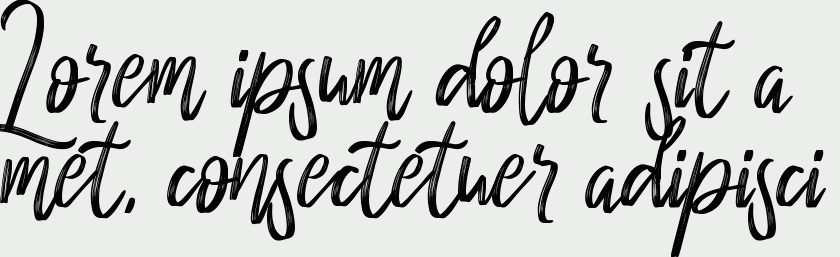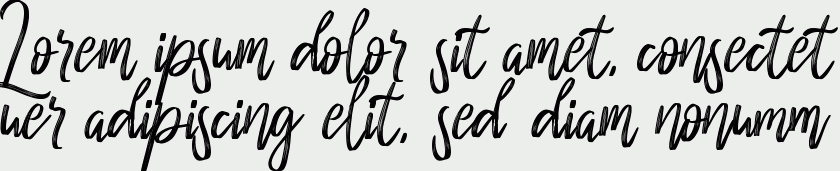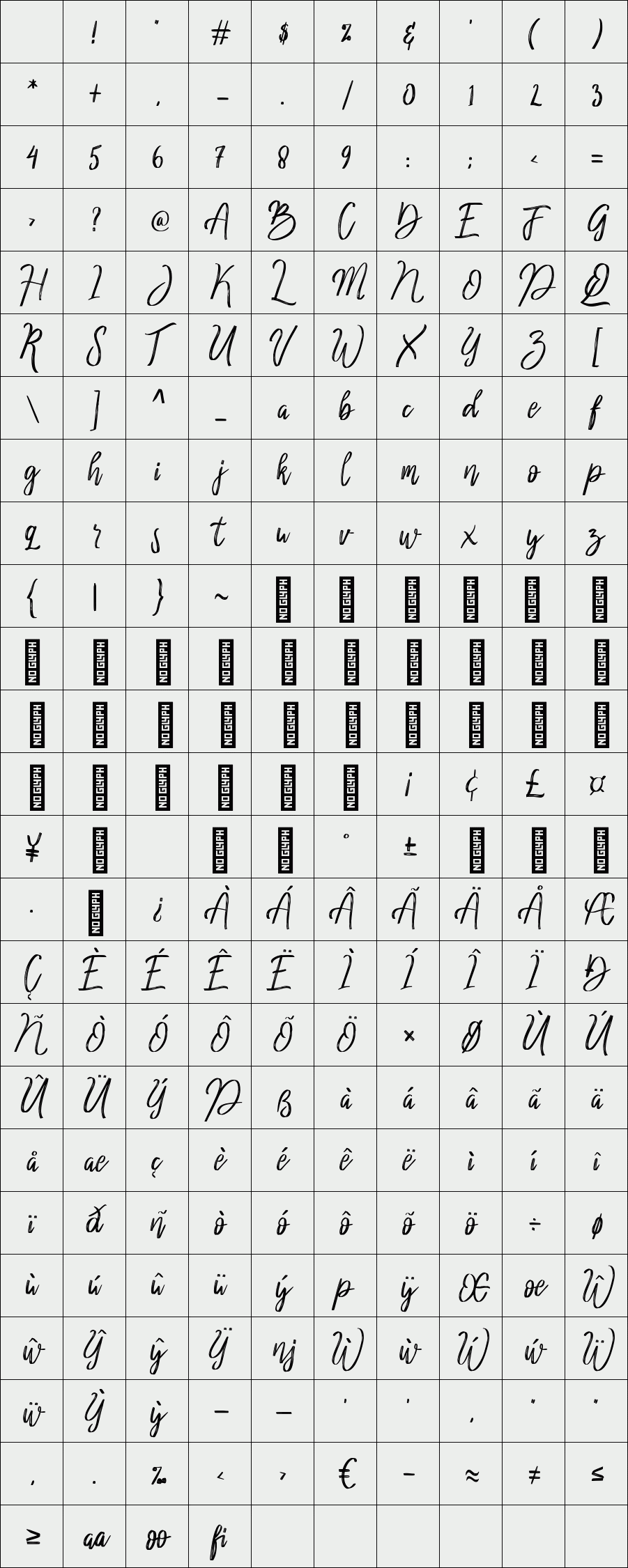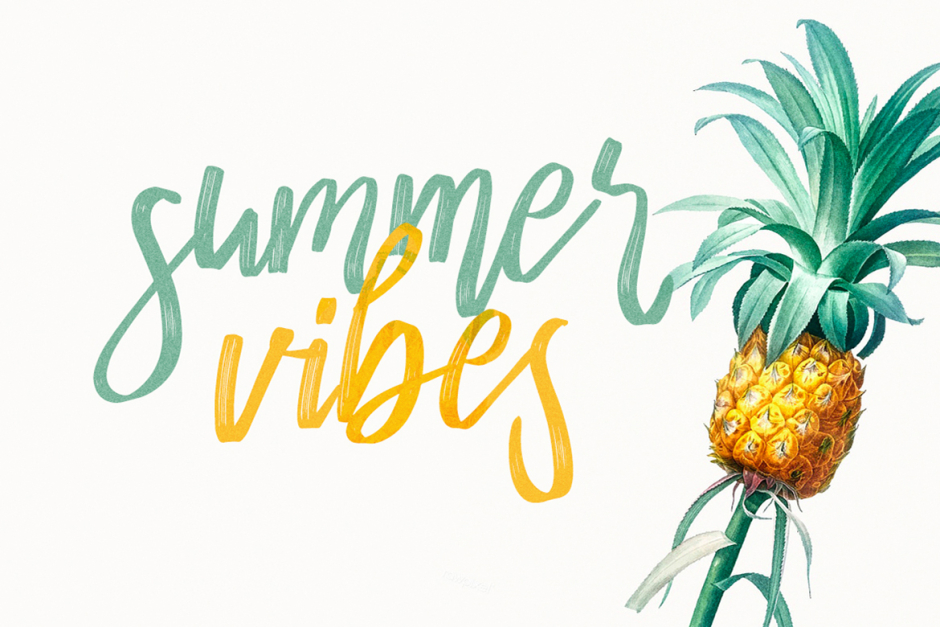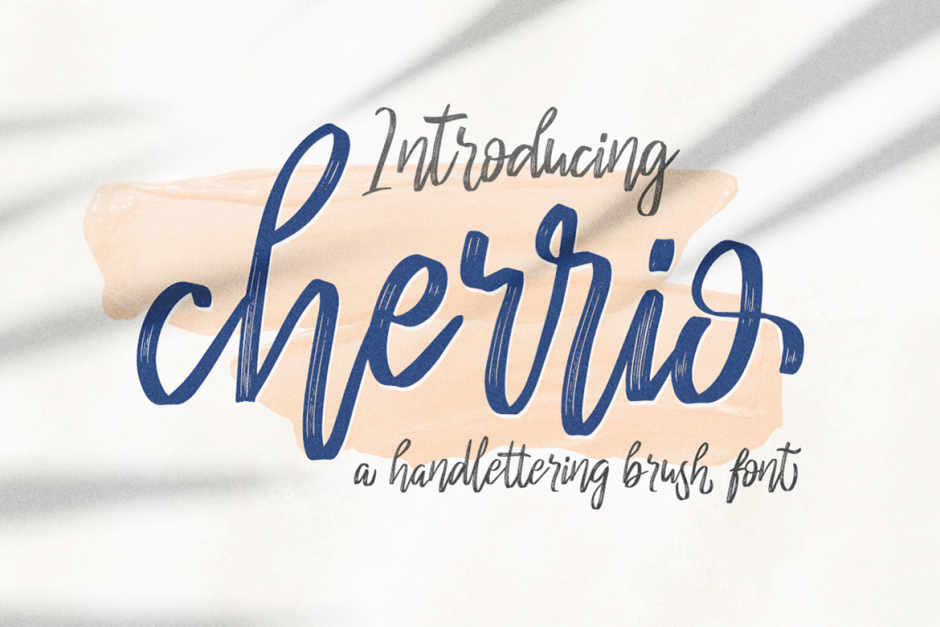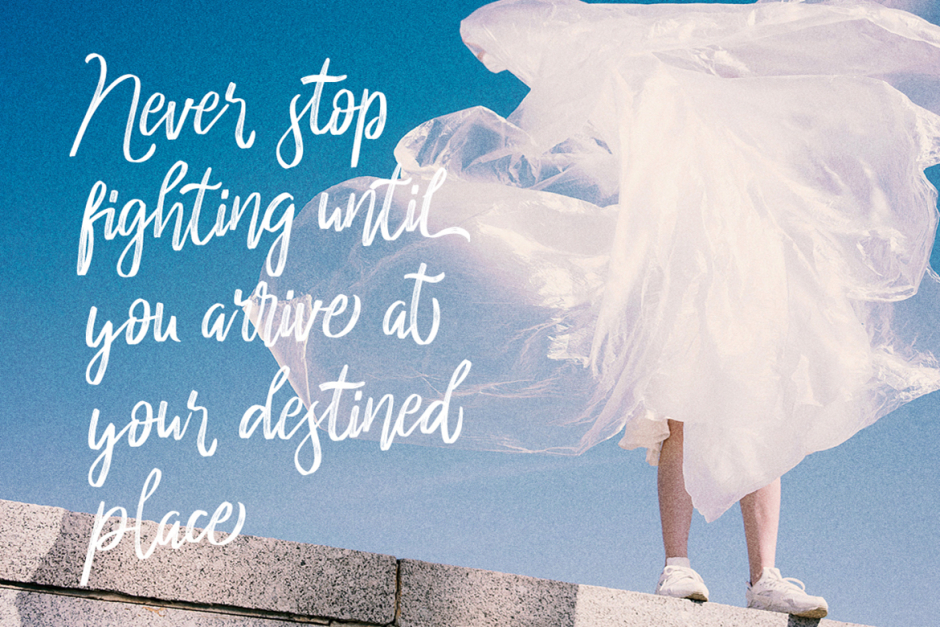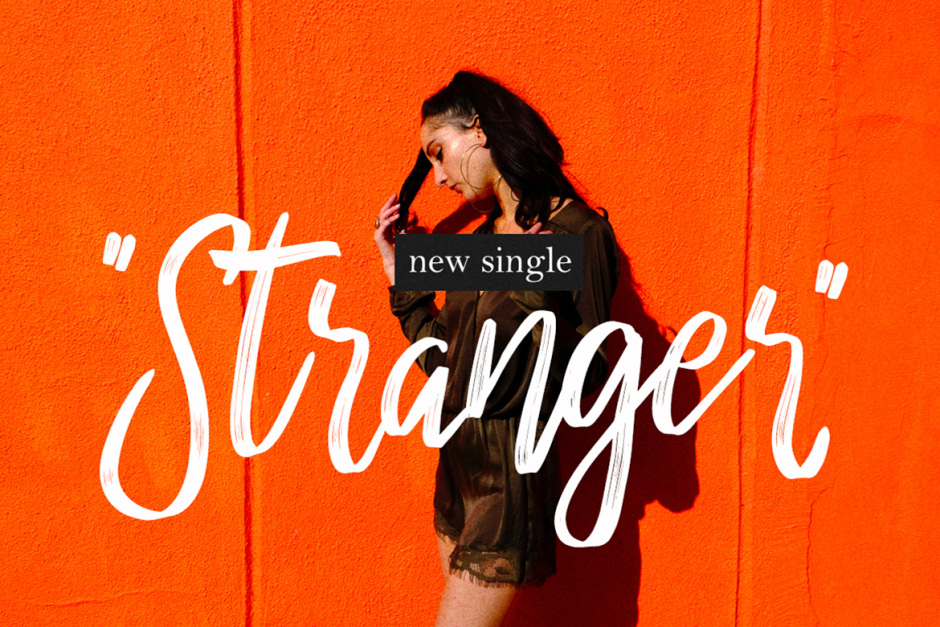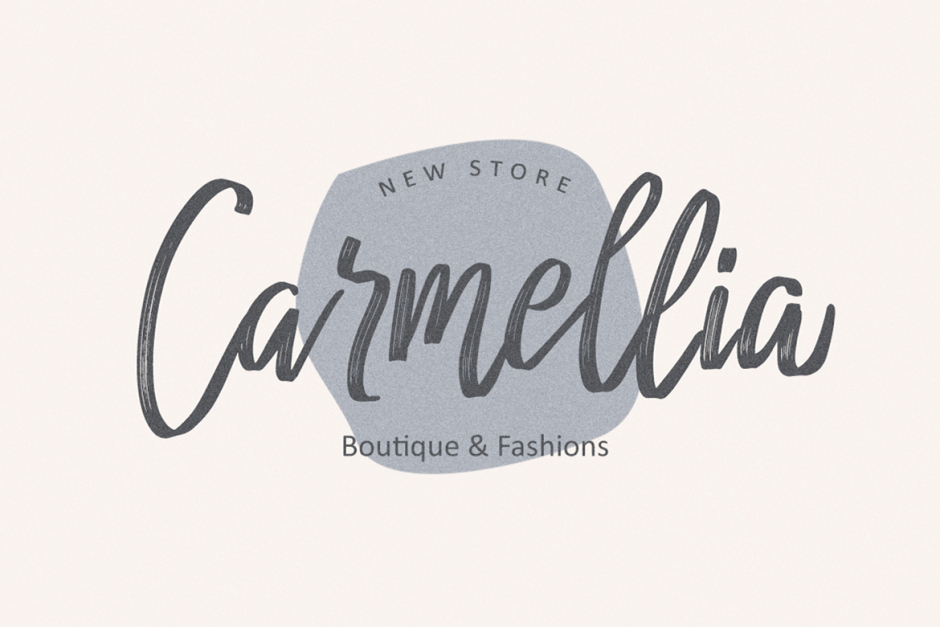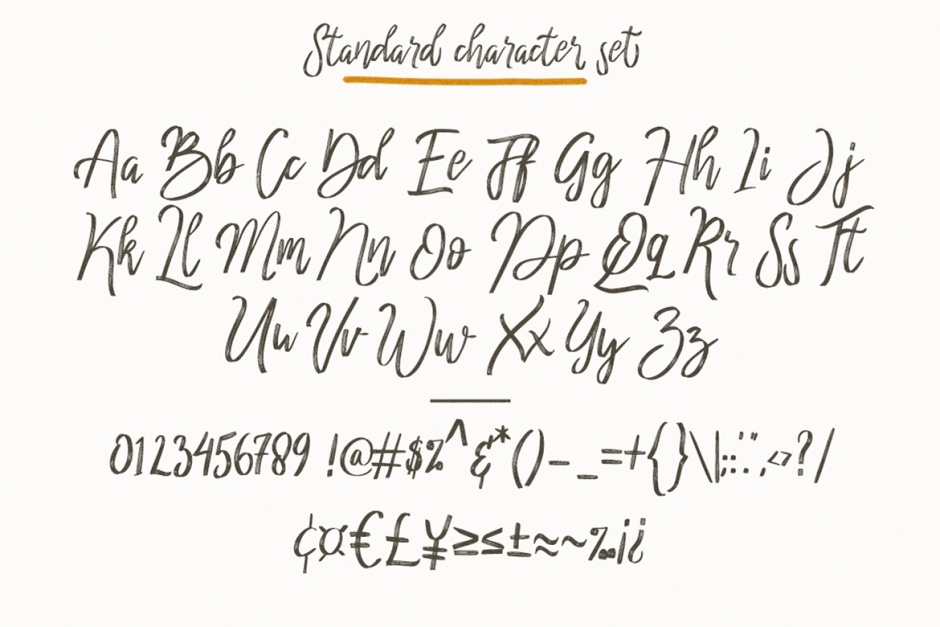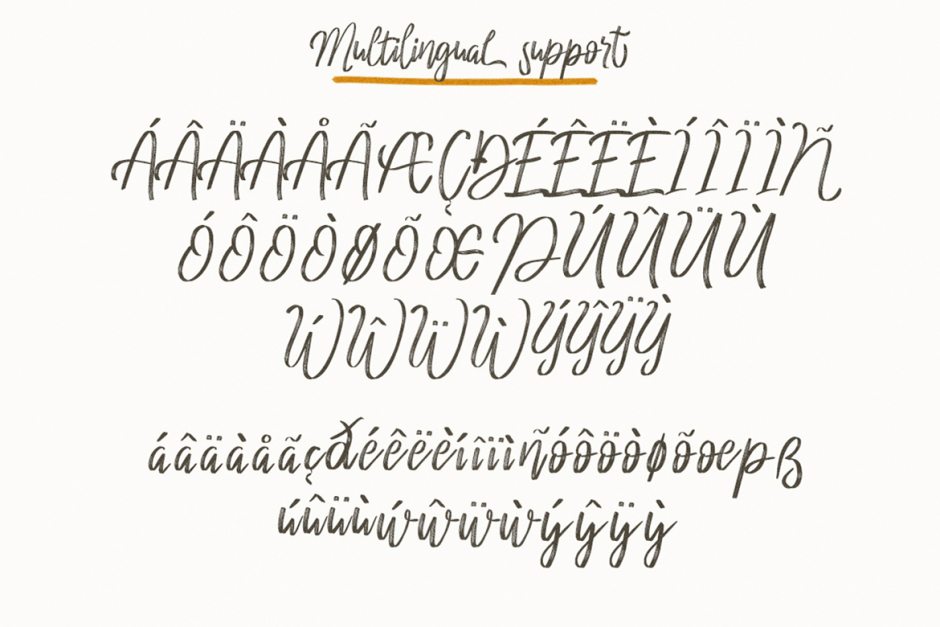
cherrio brush
Introducing the new hand-lettered brush font Cherrio Brush. its a fun brush font with natural handmade feels. This font is perfect for your logotype, wedding invitations, headlines, or any graphic design related needs. It comes with alternates, ligatures, numeral & punctuations, also in multilingual support. A lot more ligatures and alternates will added in every updates.